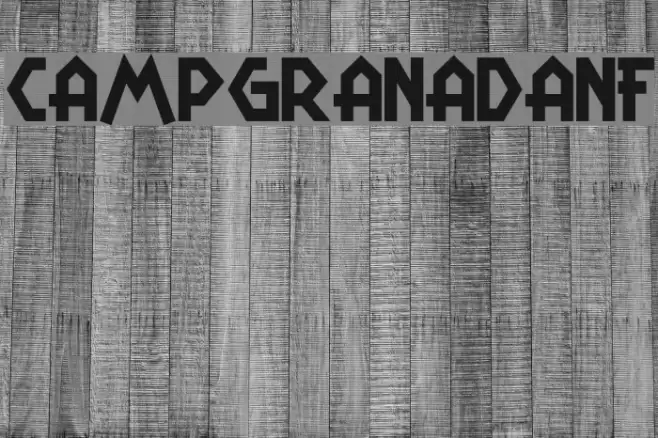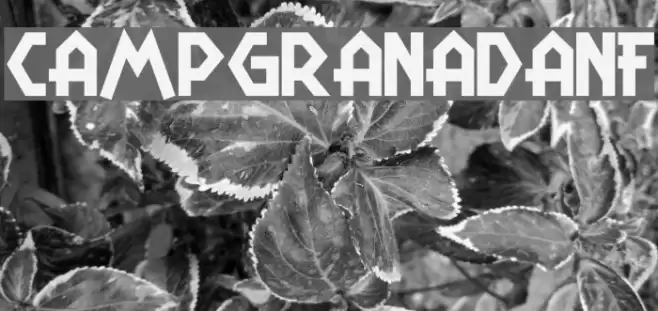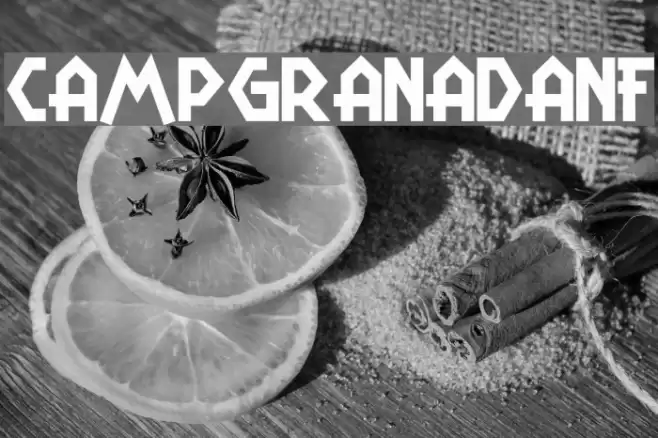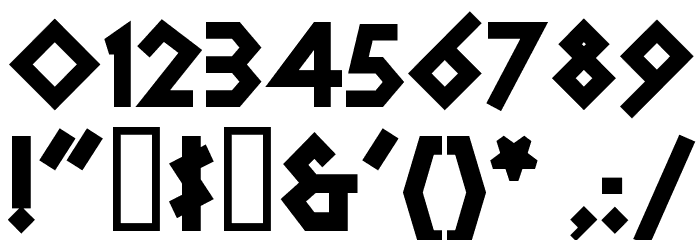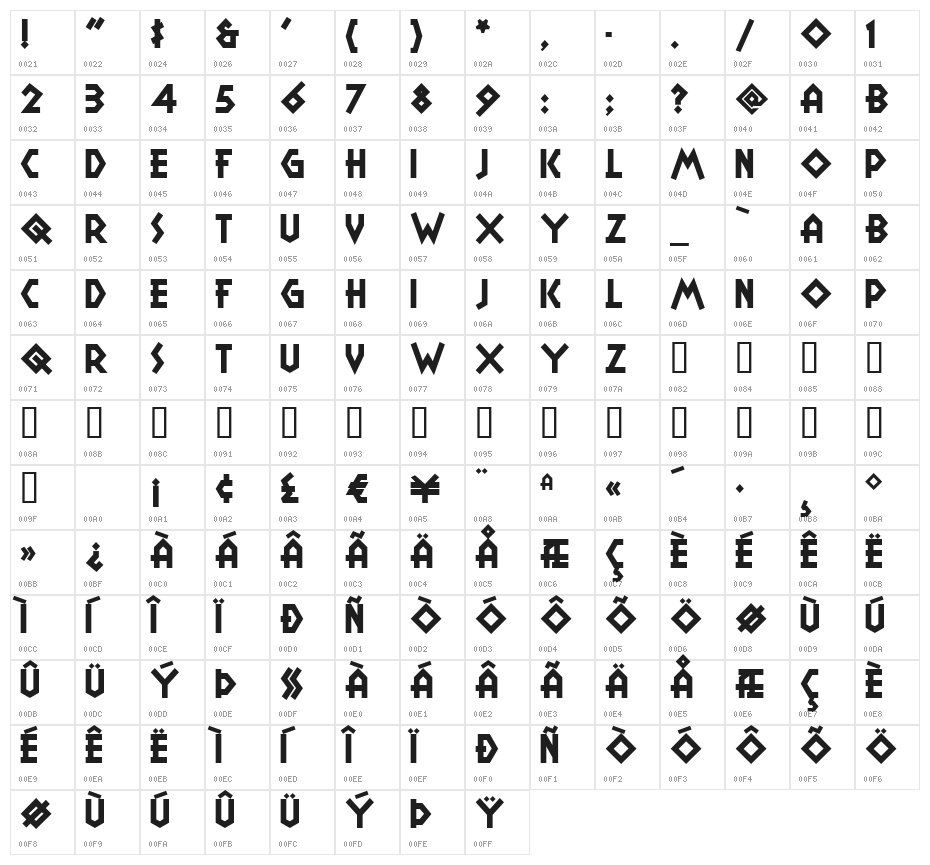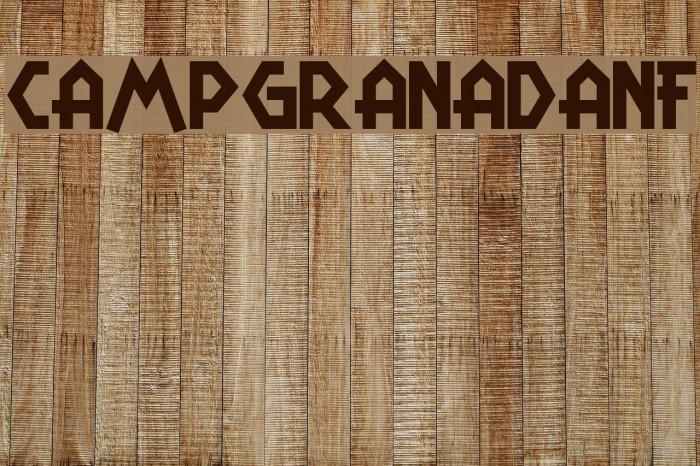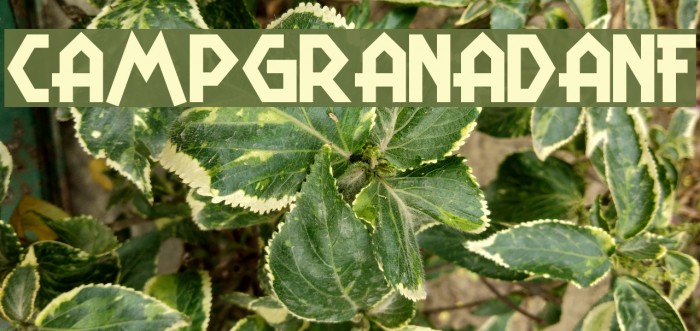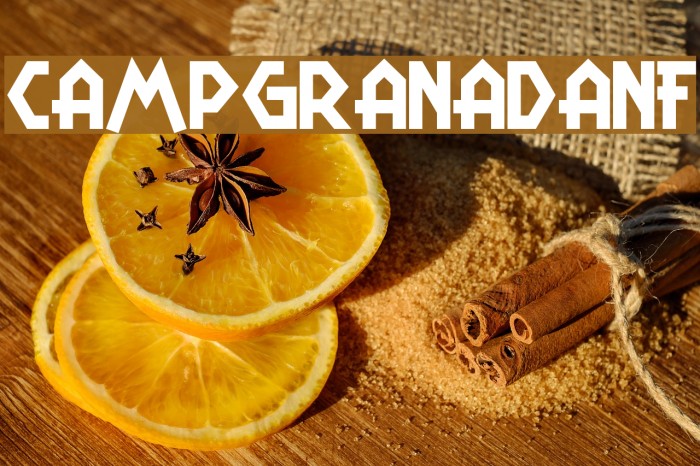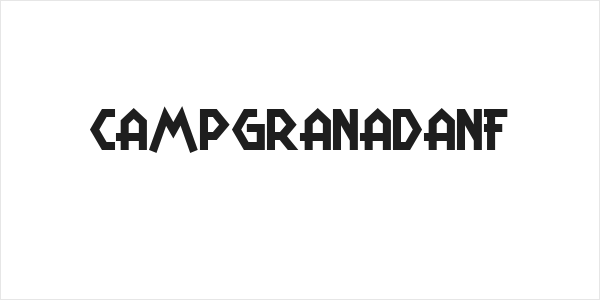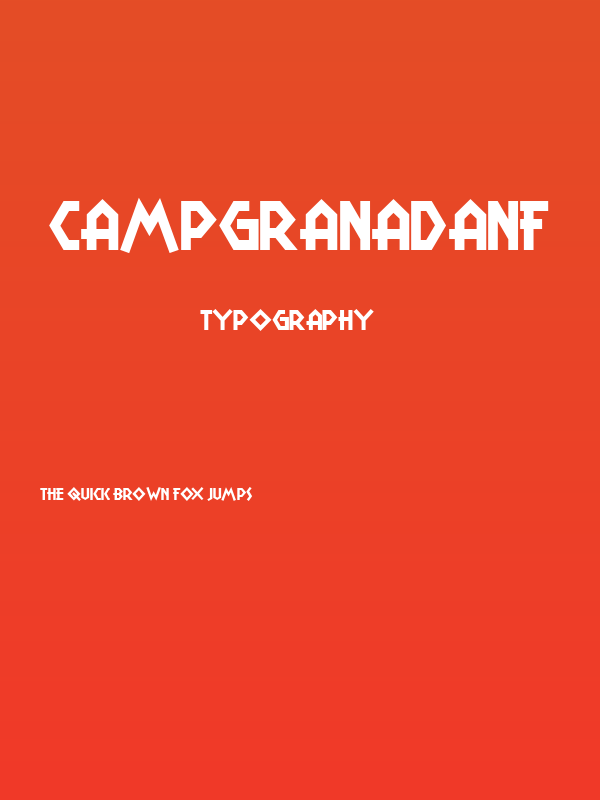
CampGranadaNF Font
CampGranadaNF Description
This font features a bold, geometric style with sharp angles and a distinct blocky appearance. The uppercase letters are characterized by their uniform height and width, creating a cohesive and structured look. The numerals and special characters maintain this geometric theme, providing a consistent visual language across all characters. The font's strong presence makes it suitable for attention-grabbing designs. Its unique style is reminiscent of retro or vintage aesthetics, yet it maintains a modern edge due to its clean lines and bold forms.
A bold, geometric font with a retro yet modern aesthetic from Capitals fonts.
- Proposed Projects: Ideal for poster designs, branding projects, and any creative work that requires a strong, eye-catching typeface.
- Overall Style: Retro, Modern